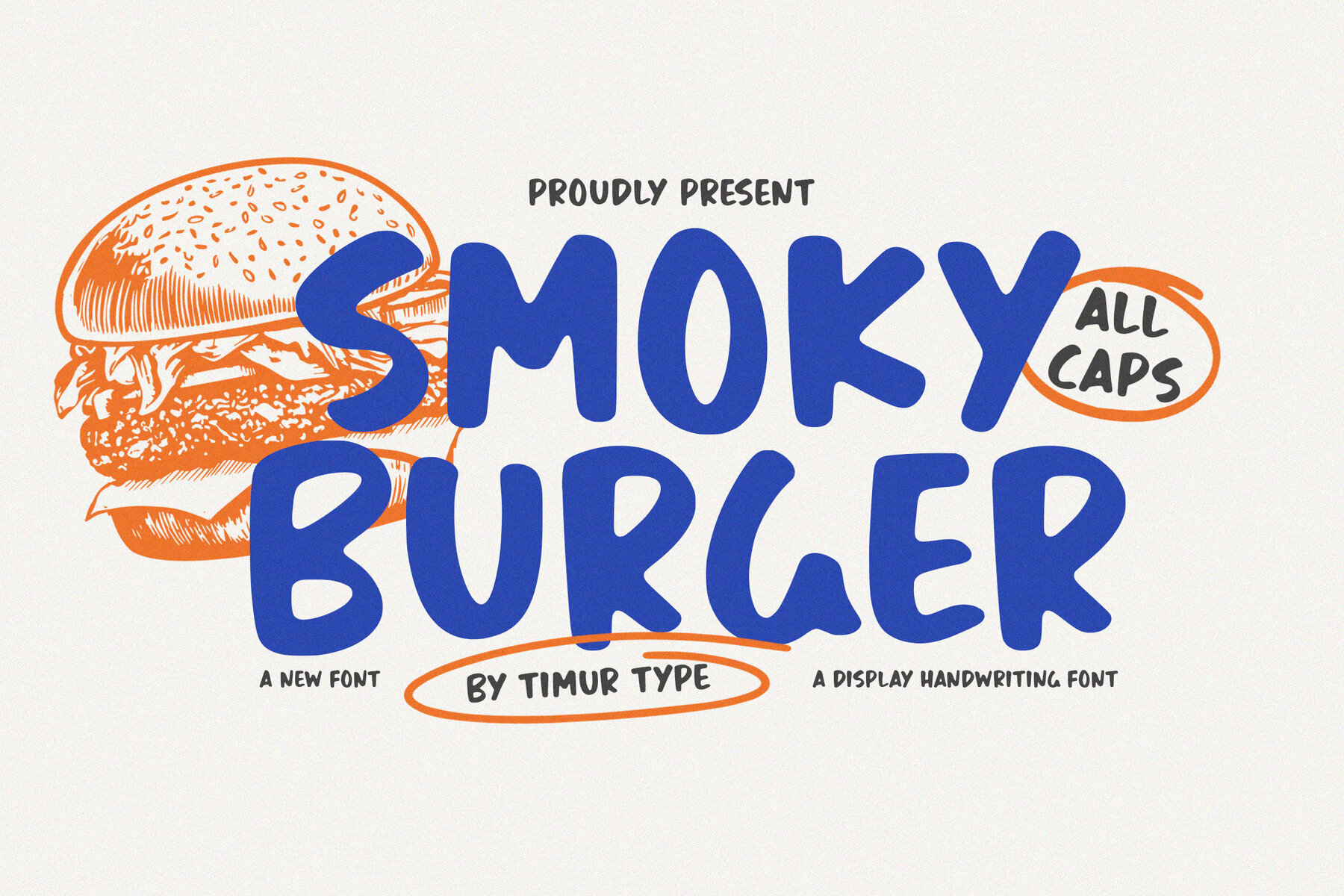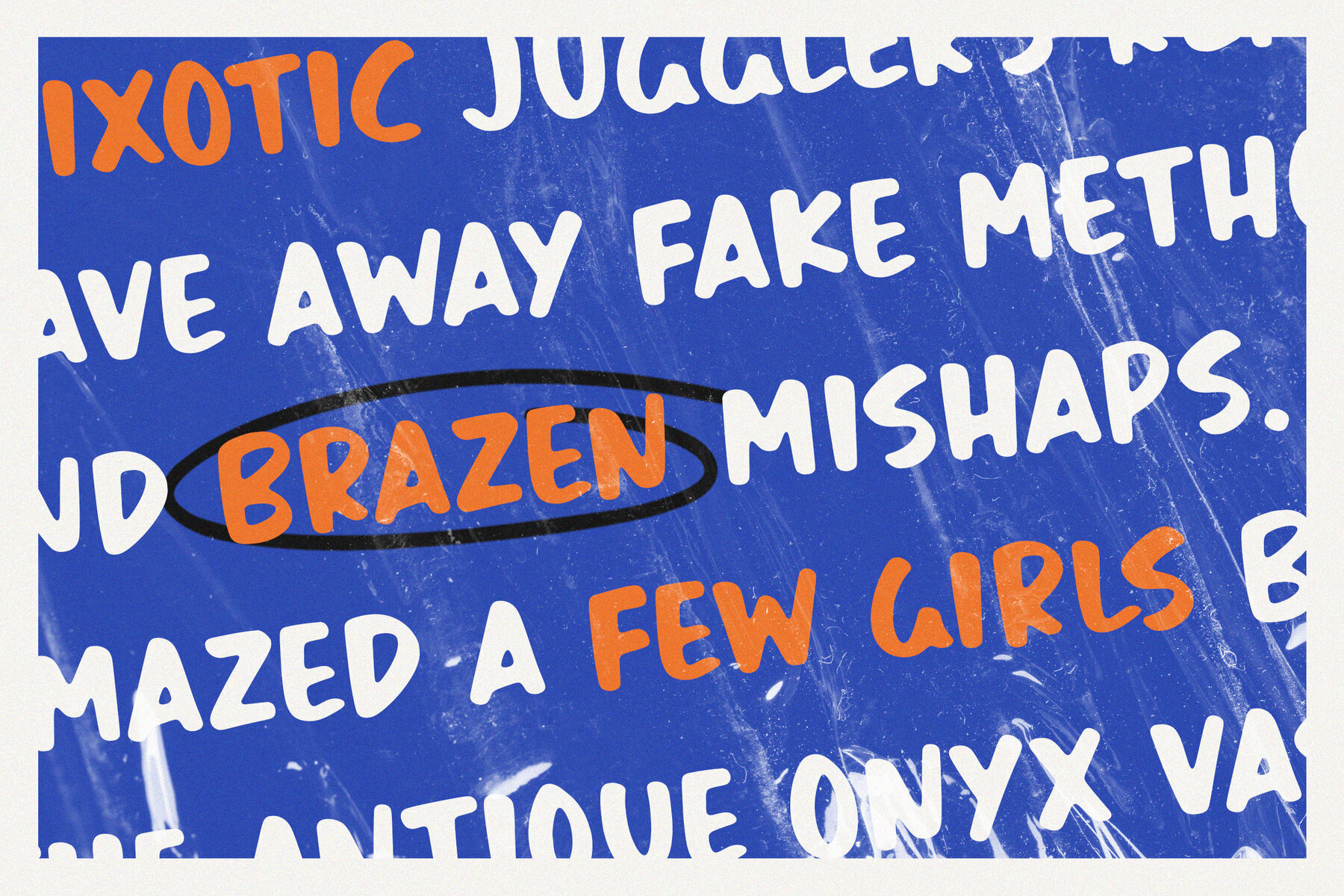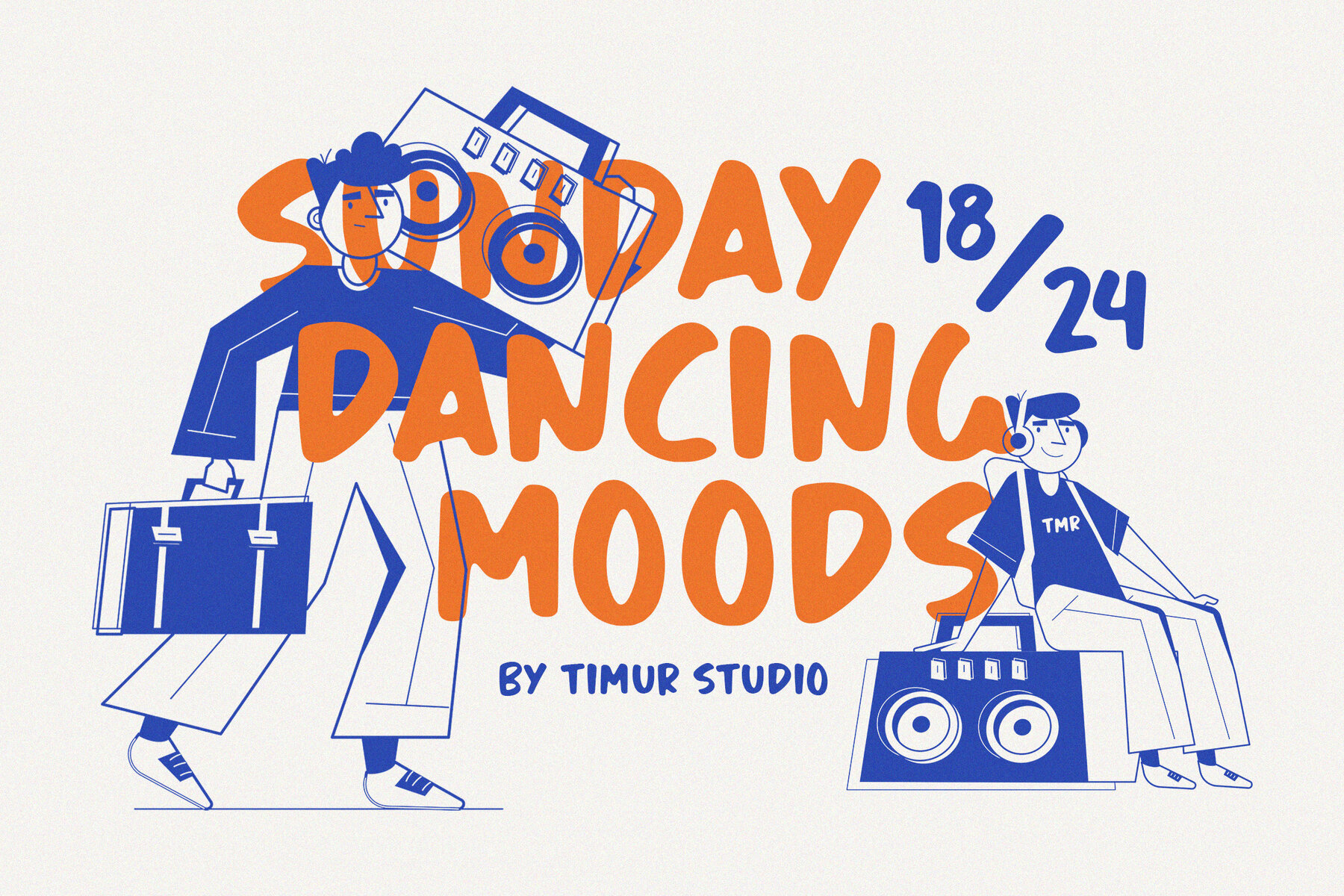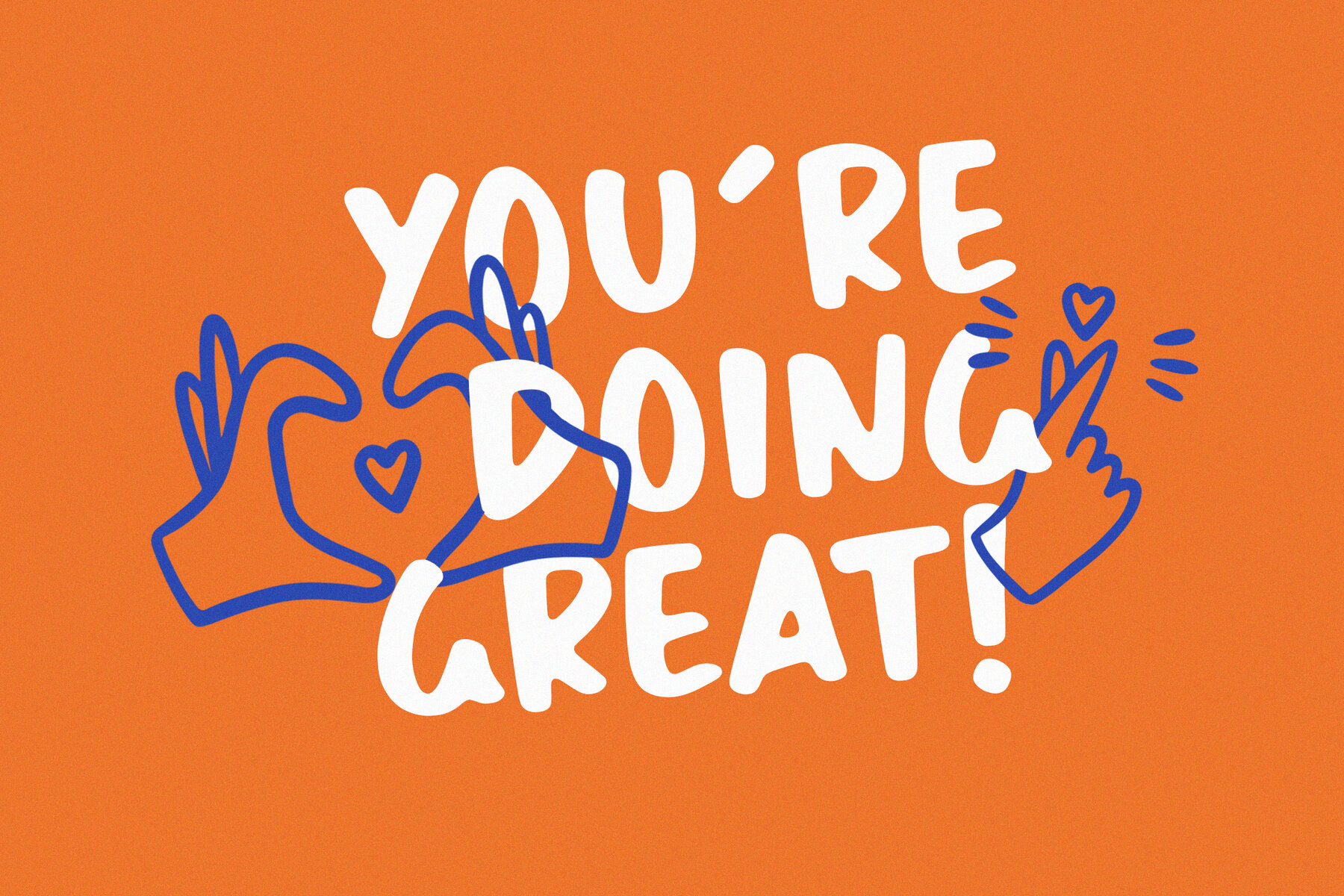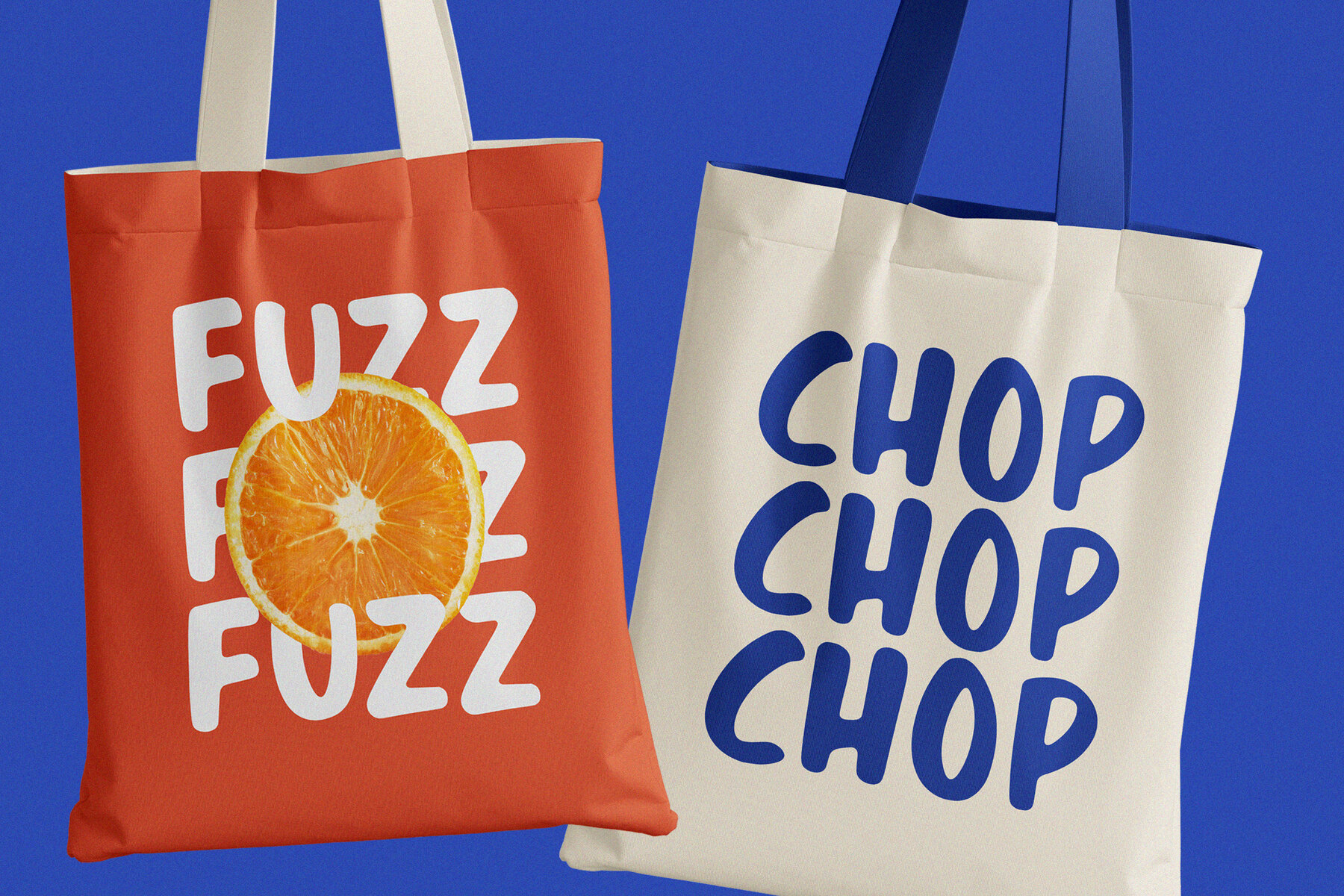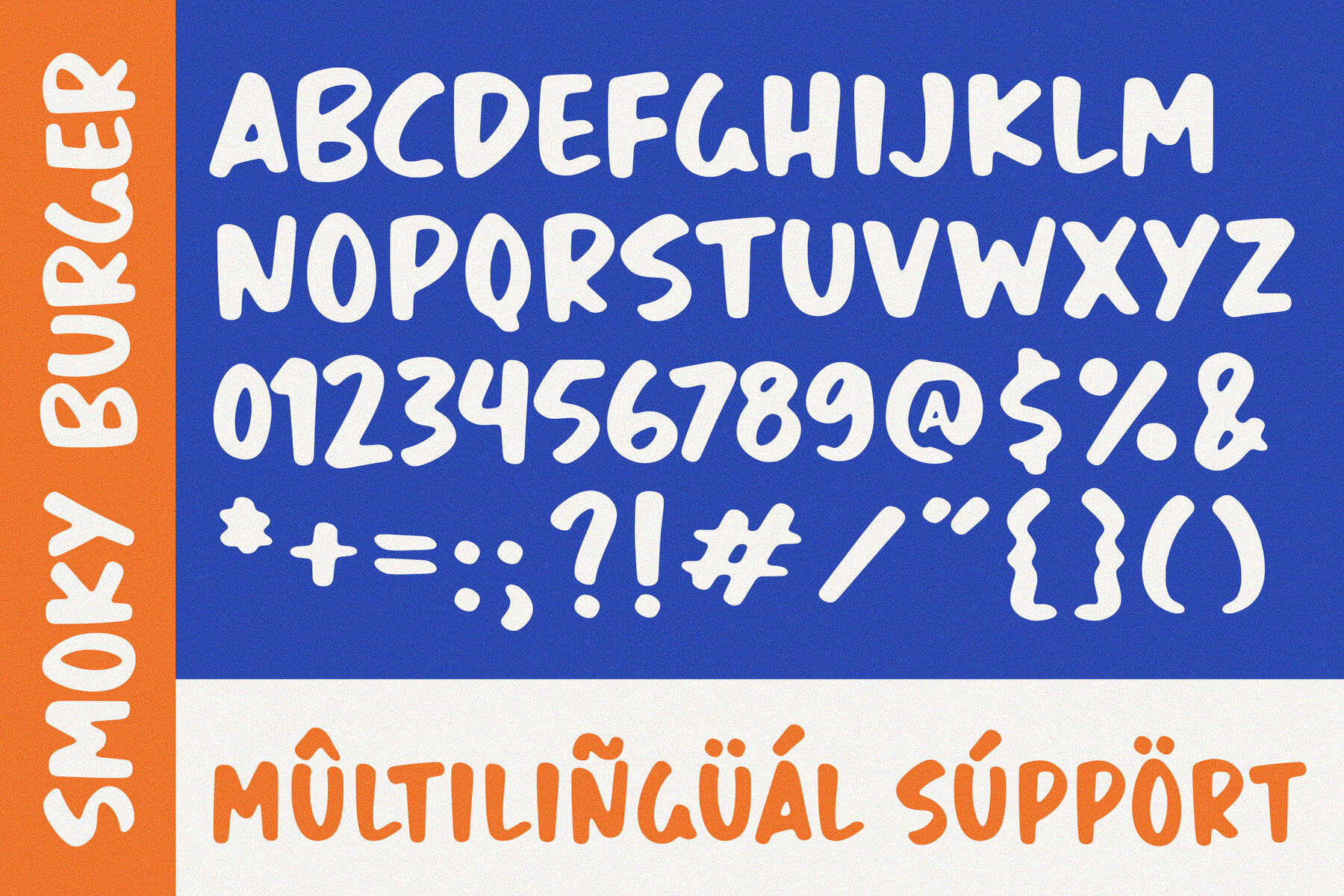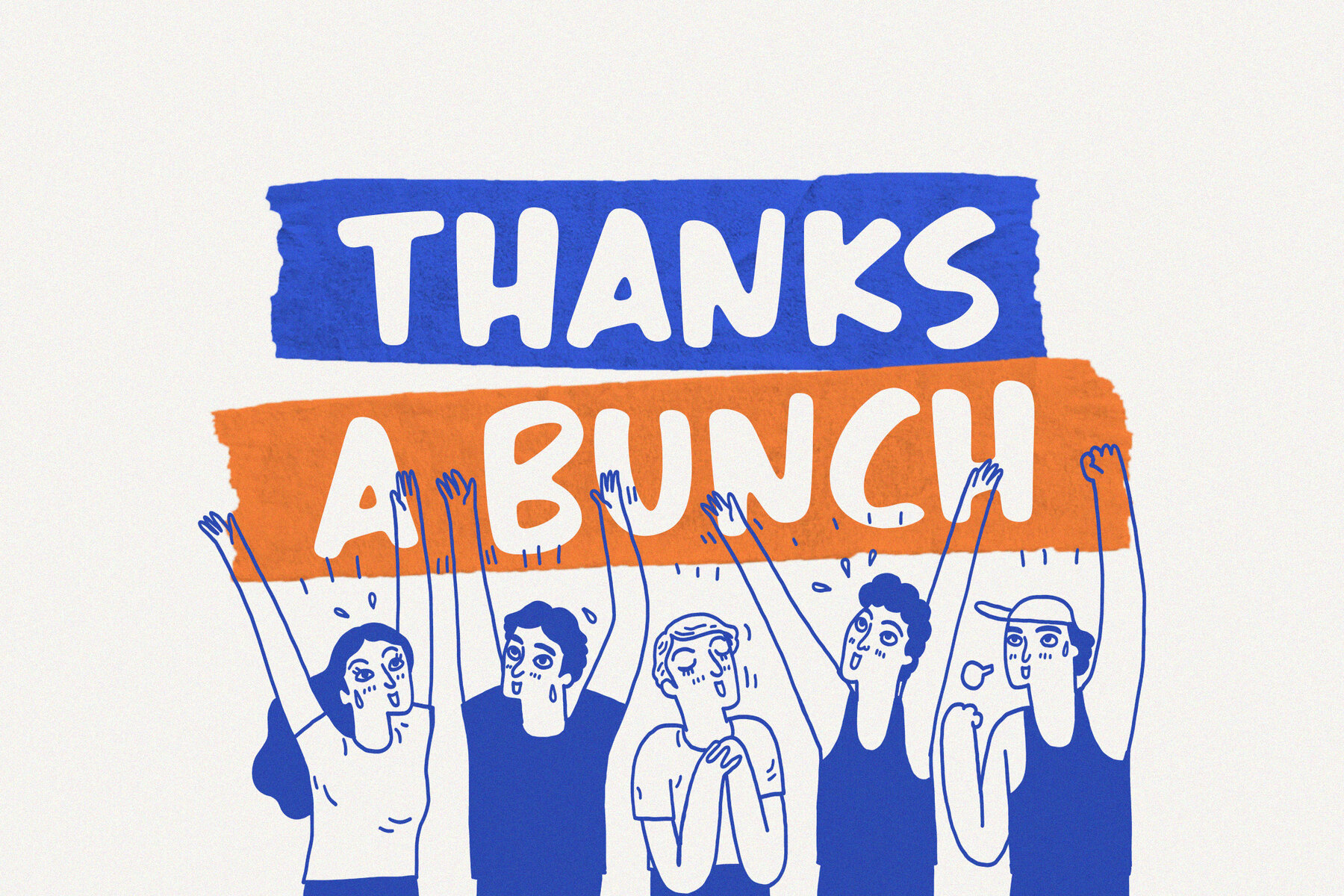
Smoky Burger Font
Smoky Burger
Smoky Burger is a display handwriting font designed for bold and engaging design projects. Its handcrafted and dynamic letterforms capture the casual and inviting essence of handwriting. The playful curves and variable stroke widths contribute to its friendly and relaxed aesthetic, making it an ideal choice for menus, food packaging, and signage.
Perfect for evoking the atmosphere of a retro diner or a modern artisanal feel, Smoky Burger offers versatile design possibilities. Embrace its inviting energy to add charm and warmth to your work, reminiscent of a casual and delightful burger joint experience.